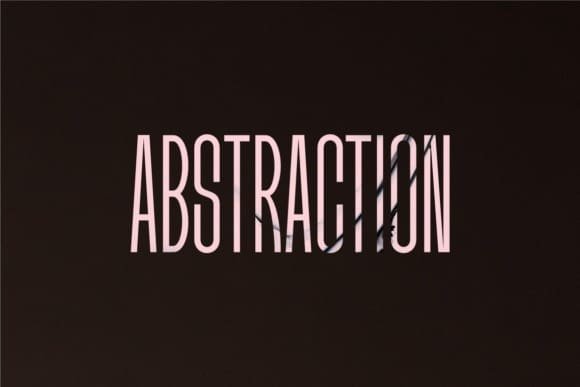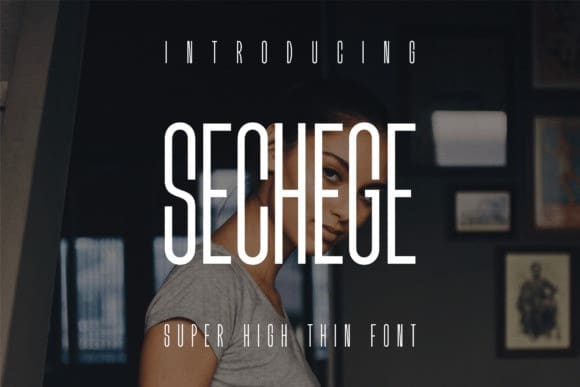
Sechege Font
Sechege Font is an incredibly unique display font. Masterfully designed to become a true favorite, this font has the potential to bring each of your creative ideas to the highest level!